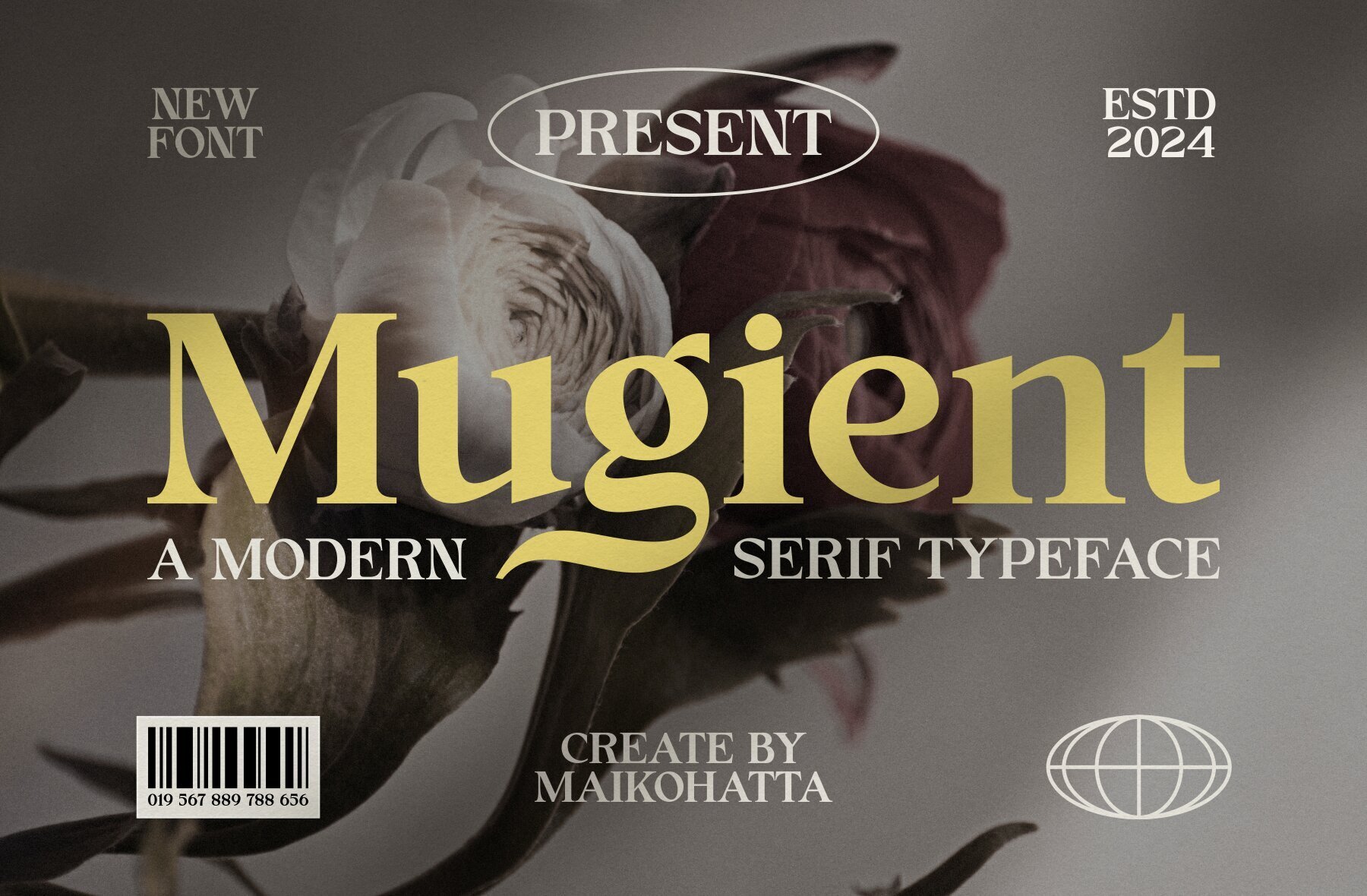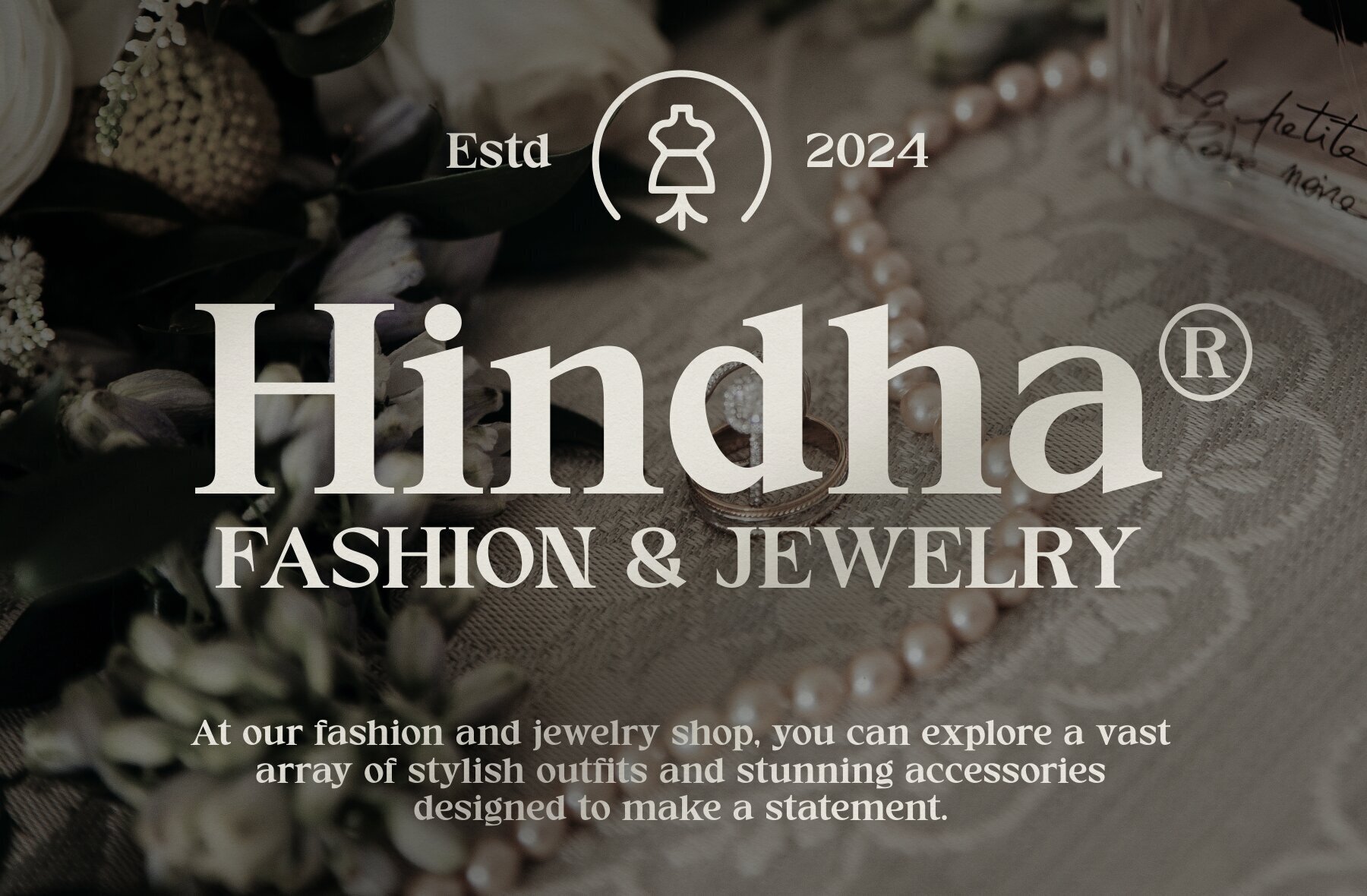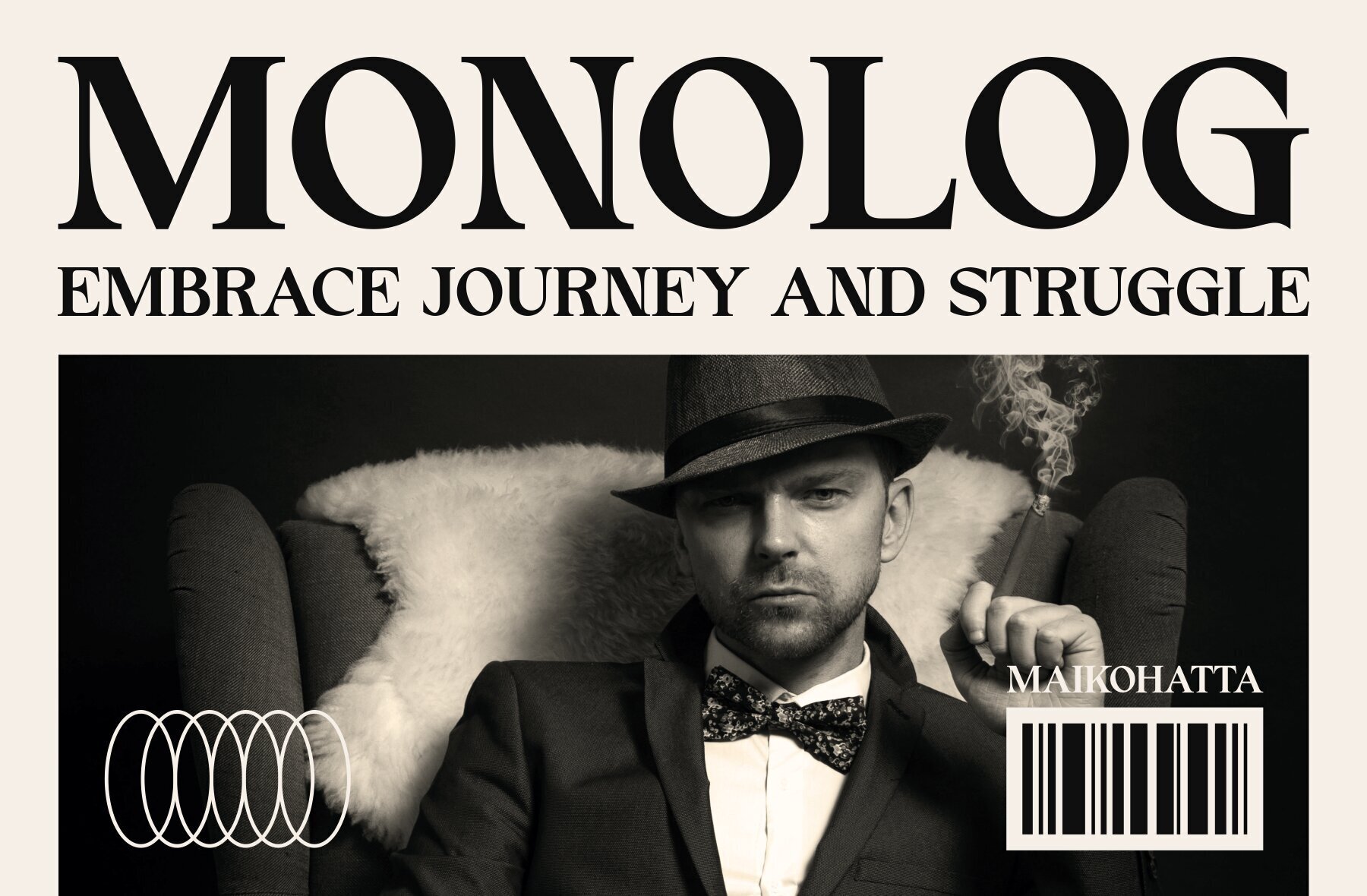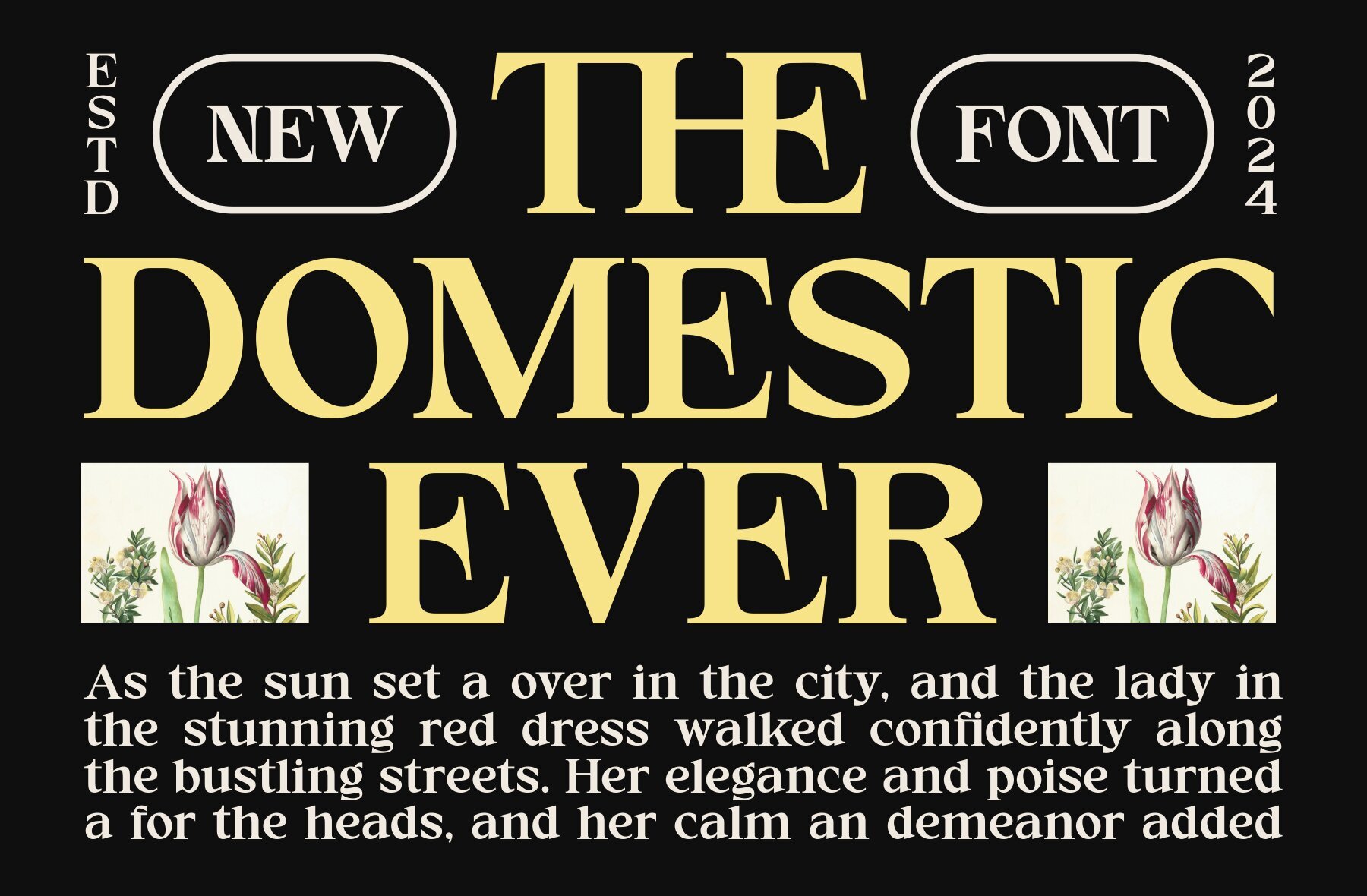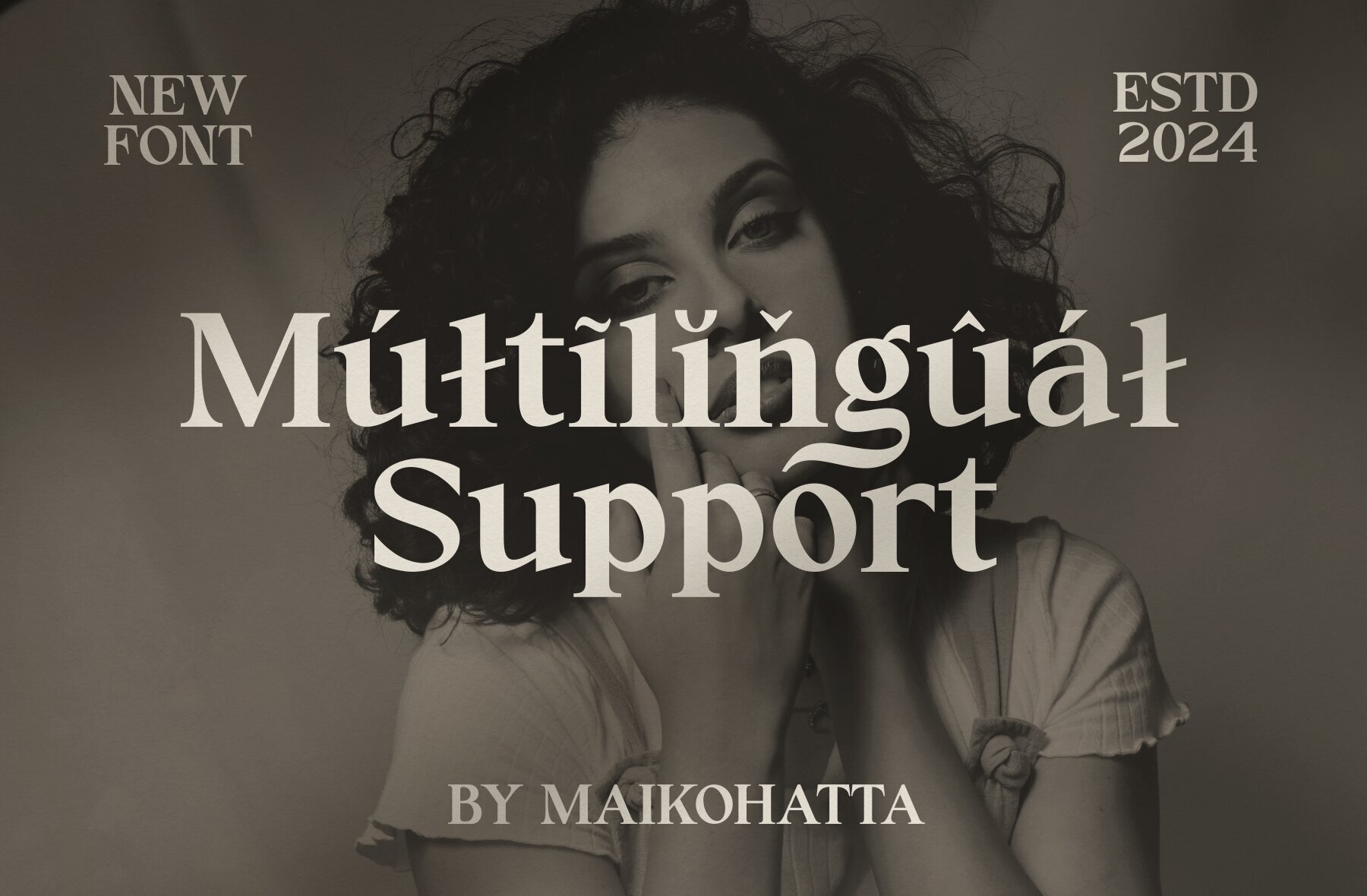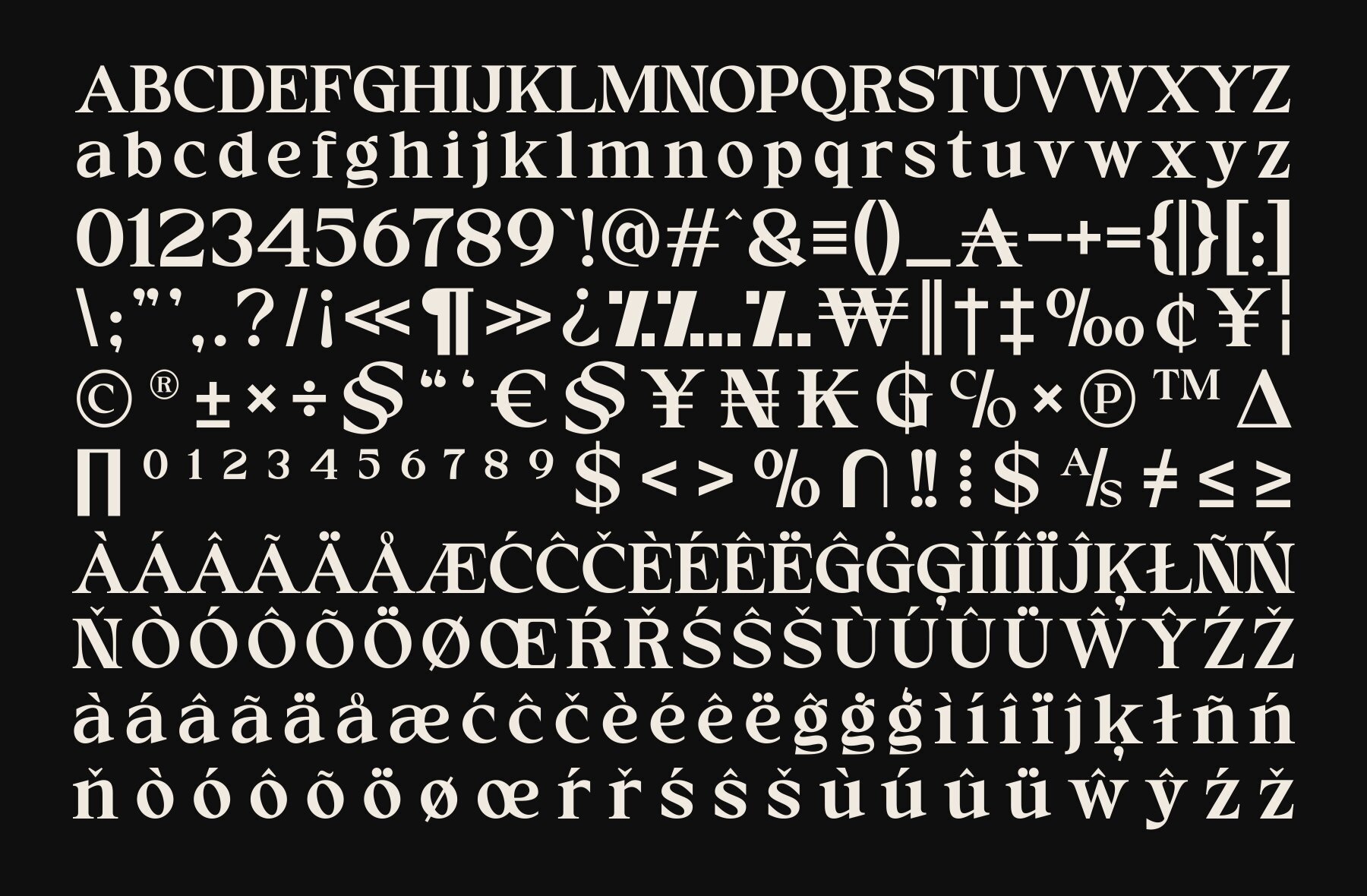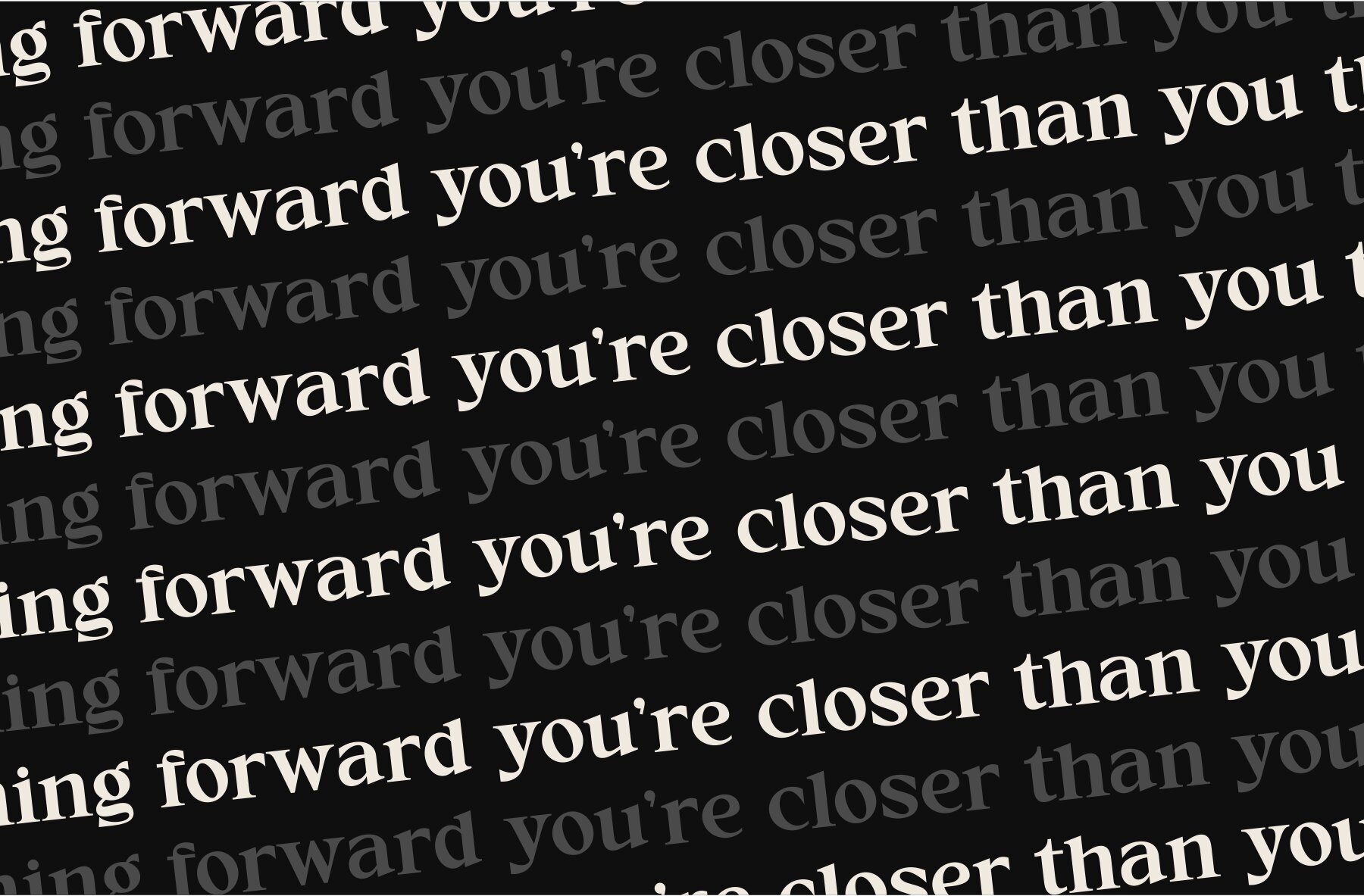
Mugient Font
Mugient Regular
Introducing Mugient - a Modern Serif Typeface that balances stroke thickness and fineness for attractive, easy-to-read visuals. Characterized by bold contrasts between thick and thin lines, Mugient adds an understated yet distinctive touch to your designs. Features: Perfect for creating sophisticated and modern visual content.